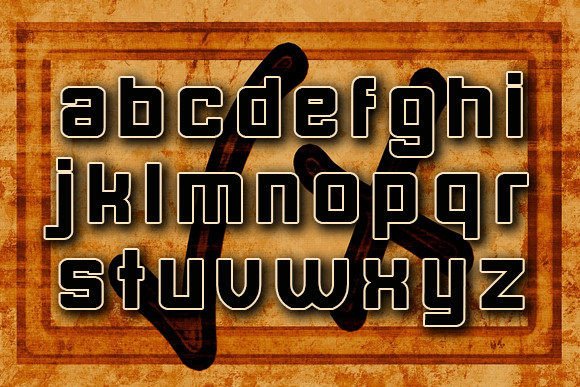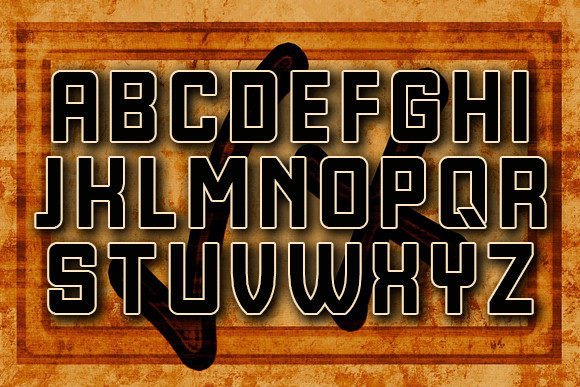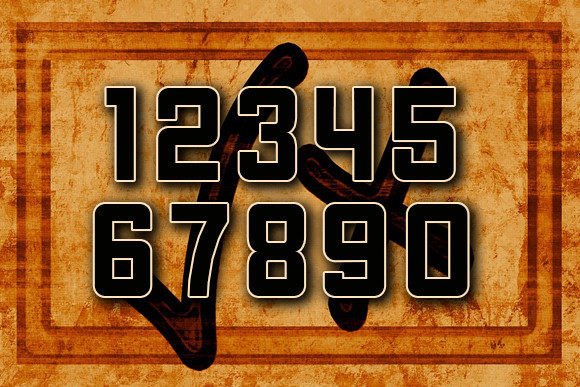
Introduction to Pojah Font
Pojah is modern Sans Serif font that will fit any of Your works.
Use this font on posters, flyers and t-shirts .
Key Features of Pojah Font
Why Choose Pojah Font?
Pojah Font offers exceptional quality and versatility, making it a valuable addition to your design toolkit. Whether you’re creating for personal projects or commercial use, Pojah Font delivers professional results.